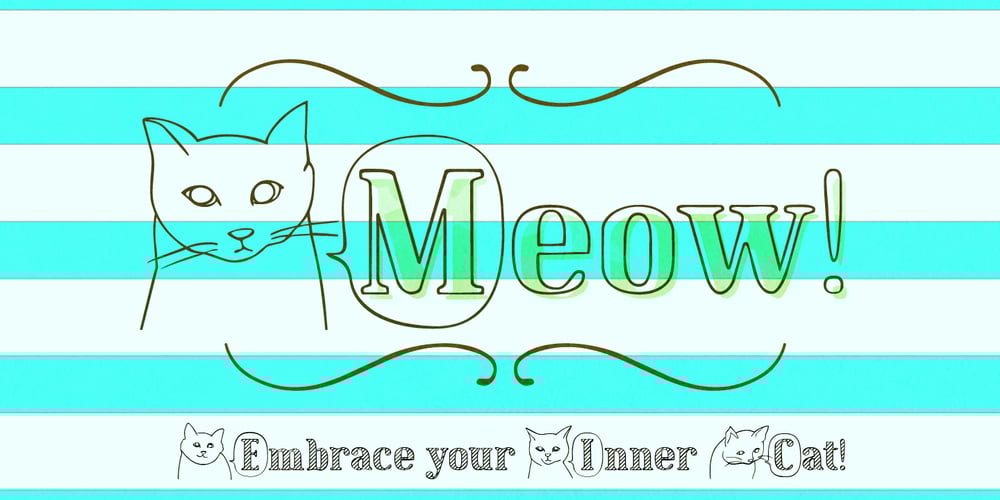
Cat Talk Font Family was designed by Natsuko Hayashida and published by Okaycat. Cat Talk contains 2 styles and family package options. Okaycat Font Foundry proudly presents “Cat Talk”! An excellent illustrated picture font containing so many cute cats on the capital letters and small letters without cats to compliment, for easy cat designs. If you’re looking for related fonts without cats, you might want to try our Maple Street and Maple Lane fonts.